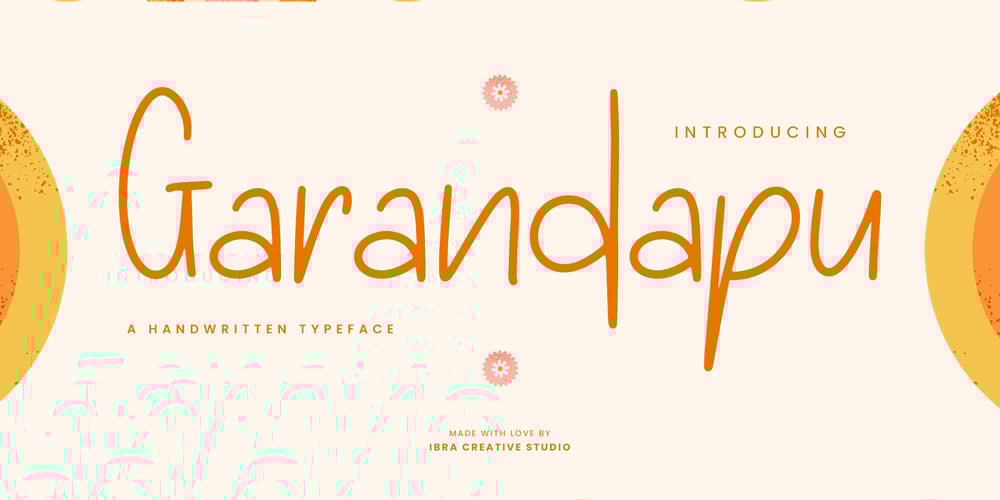
Garandapu Font Family was designed by Roisatul Azizah and published by IbraCreative. Garandapu contains 1 styles and family package options. Garandapu – A Handwritten TypefaceGarandapu is a captivating handwritten typeface that seamlessly blends modern aesthetics with a touch of nostalgic charm. Each character exudes a sense of individuality and warmth, mimicking the nuanced strokes of hand-drawn letters. The typeface embodies a harmonious balance between legibility and artistic flair, making it versatile for various design applications. Garandapu’s whimsical curves and flowing lines bring a human touch to digital communication, evoking the authenticity of handwritten notes. Whether used in invitations, branding, or creative projects, Garandapu adds a distinctive and personal element to typography, making it a delightful choice for those seeking a unique and expressive handwritten font.Garandapu is perfect for branding projects, logo, wedding designs, social media posts, advertisements, product packaging, product designs, label, photography, watermark, invitation, stationery, game, fashion and any projects.Fonts include multilingual support for; Afrikaans, Albanian, Czech, Danish, Dutch, English, Estonian, Finnish, French, German, Hungarian, Italian, Latvian, Lithuanian, Norwegian, Polish, Portuguese, Slovak, Slovenian, Spanish, Swedish.